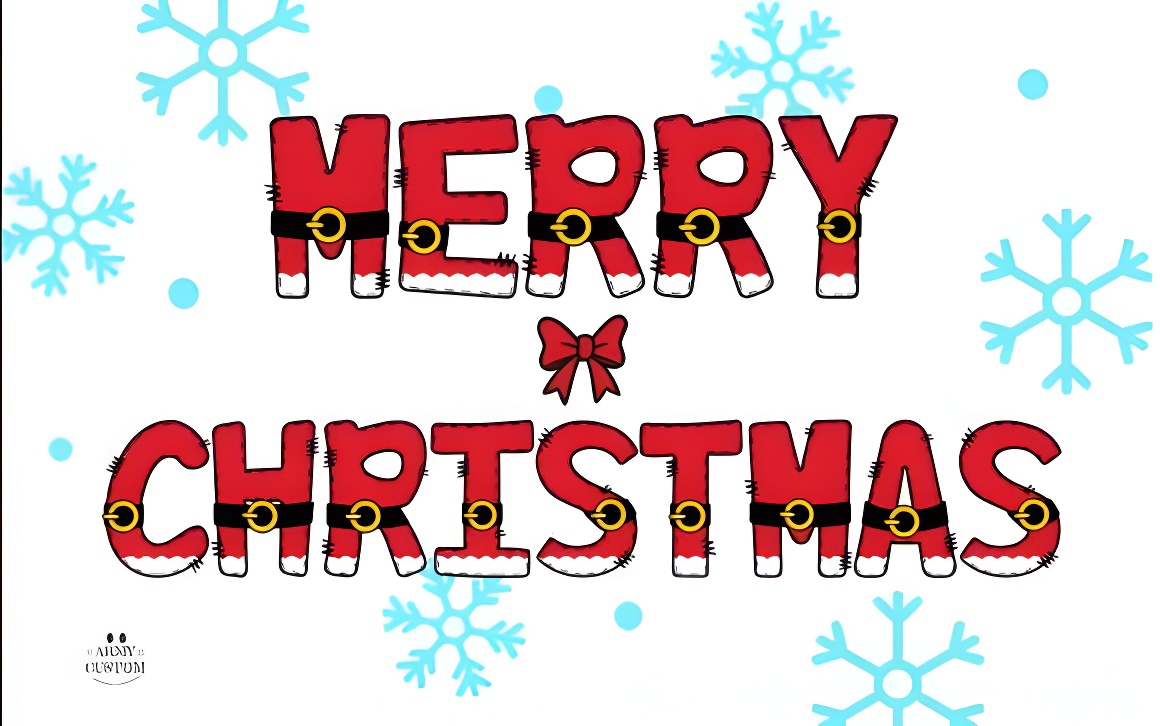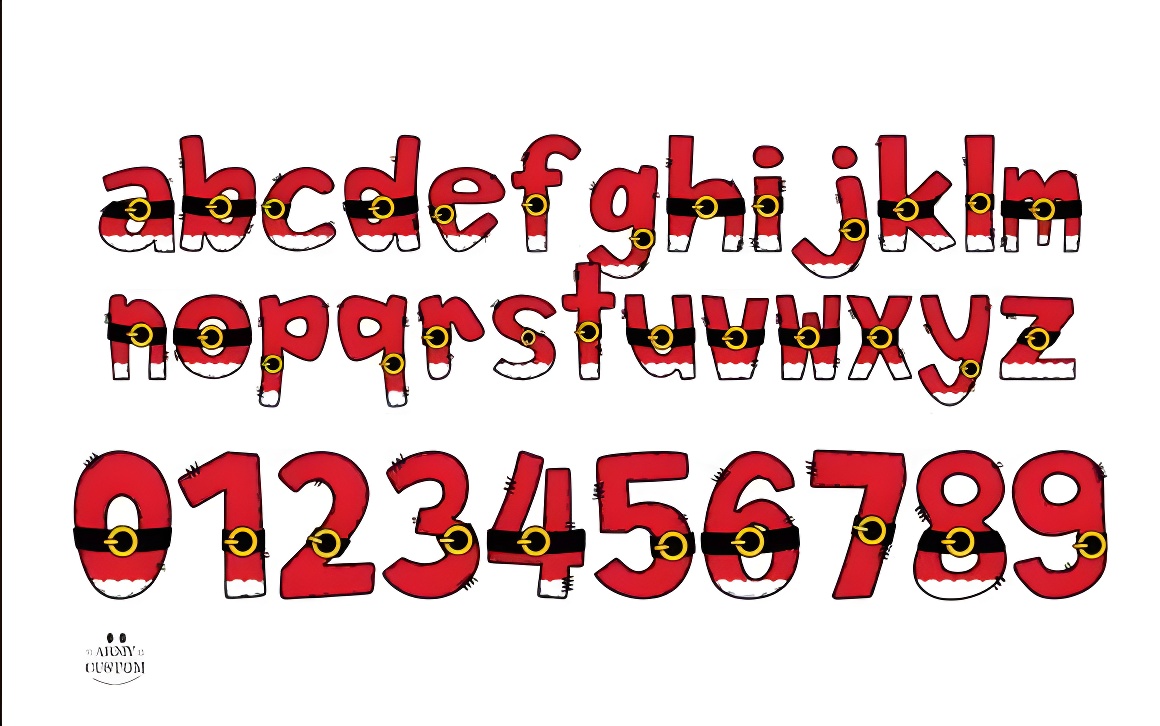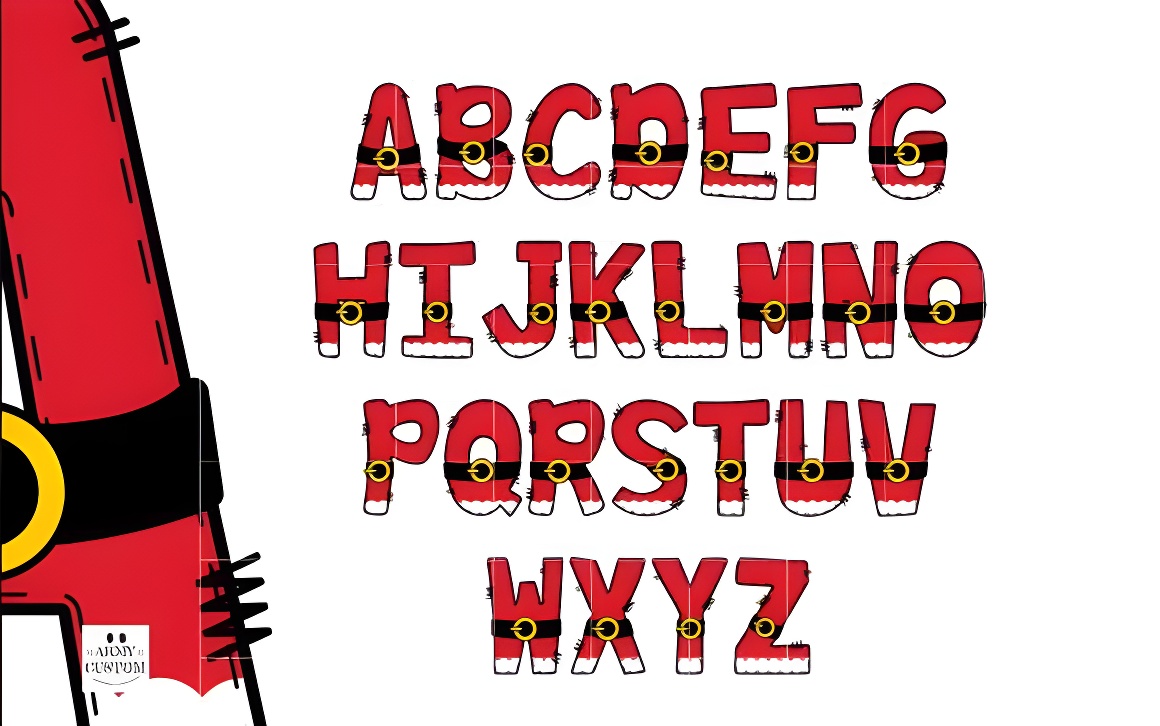
Christmas Santa Font - Festive Holiday Typography for Cricut & Design
Whimsical Christmas Santa Font with Cricut-compatible black version & Adobe SVG color font support. Playful holiday typography for decorations, cards, and designs. Includes bonus PNG files. Perfect for festive projects!